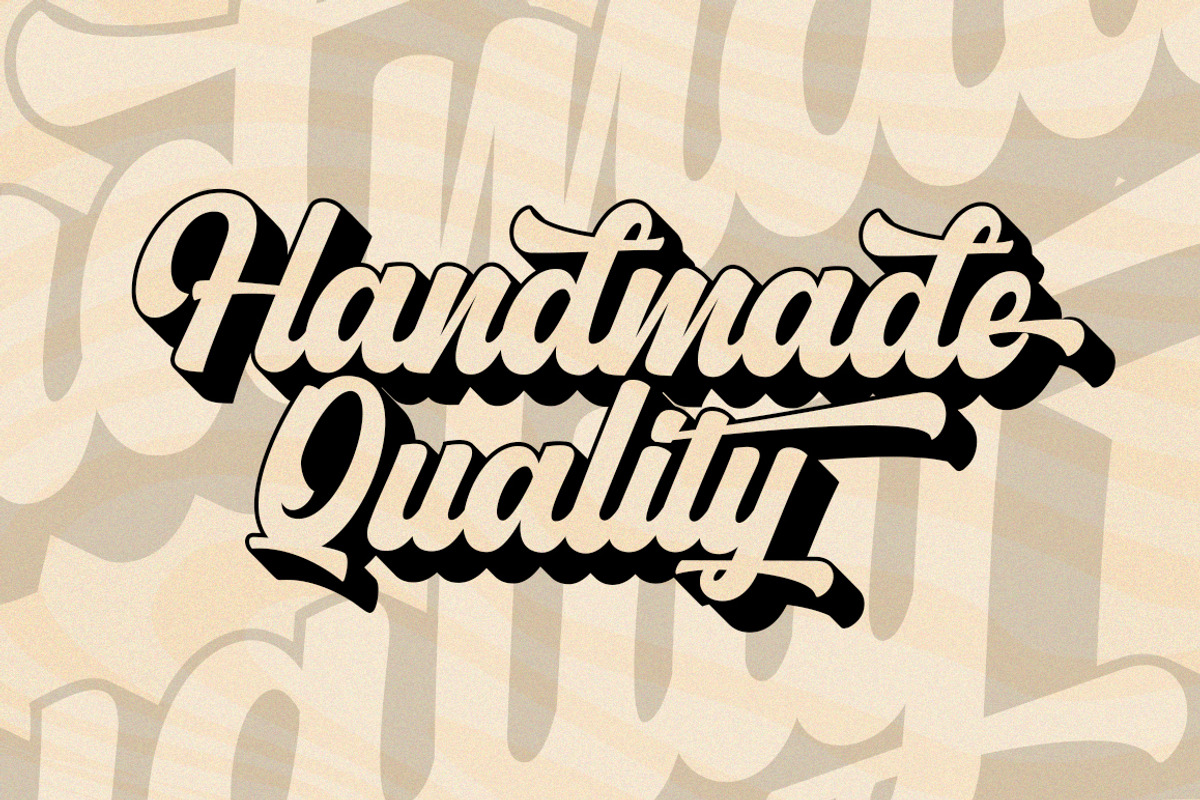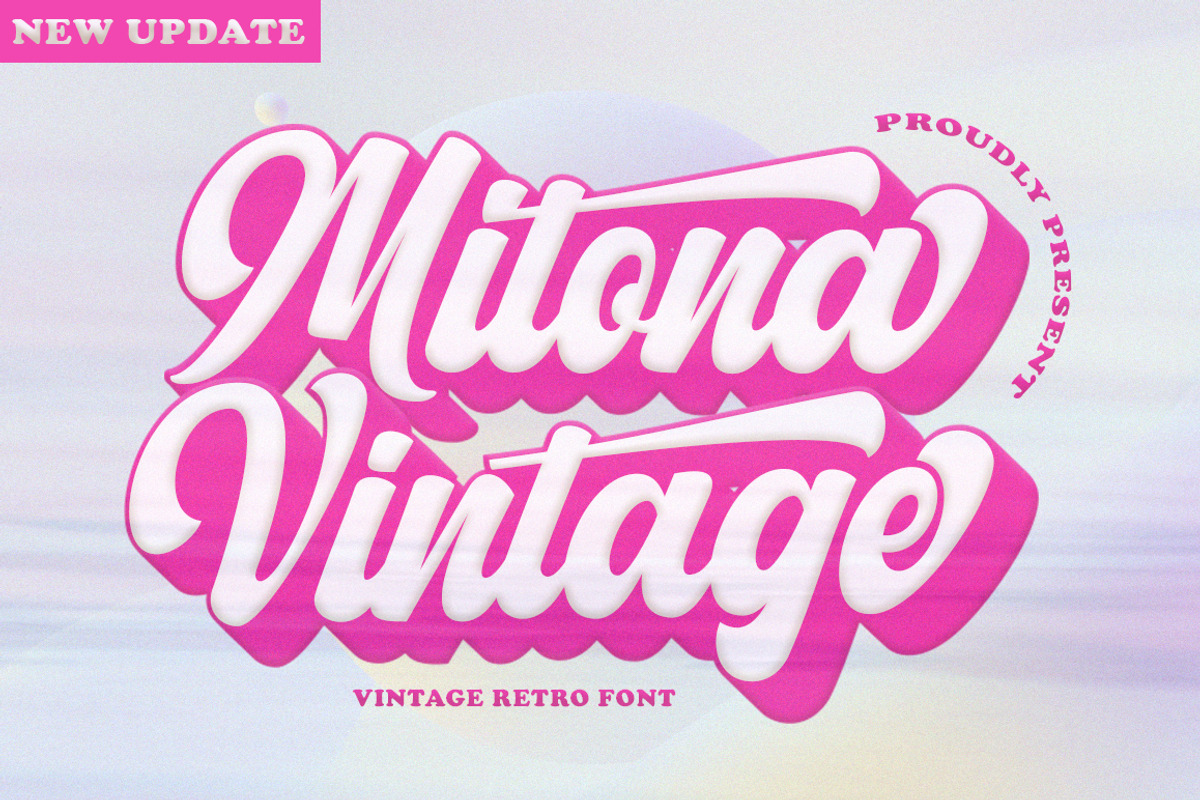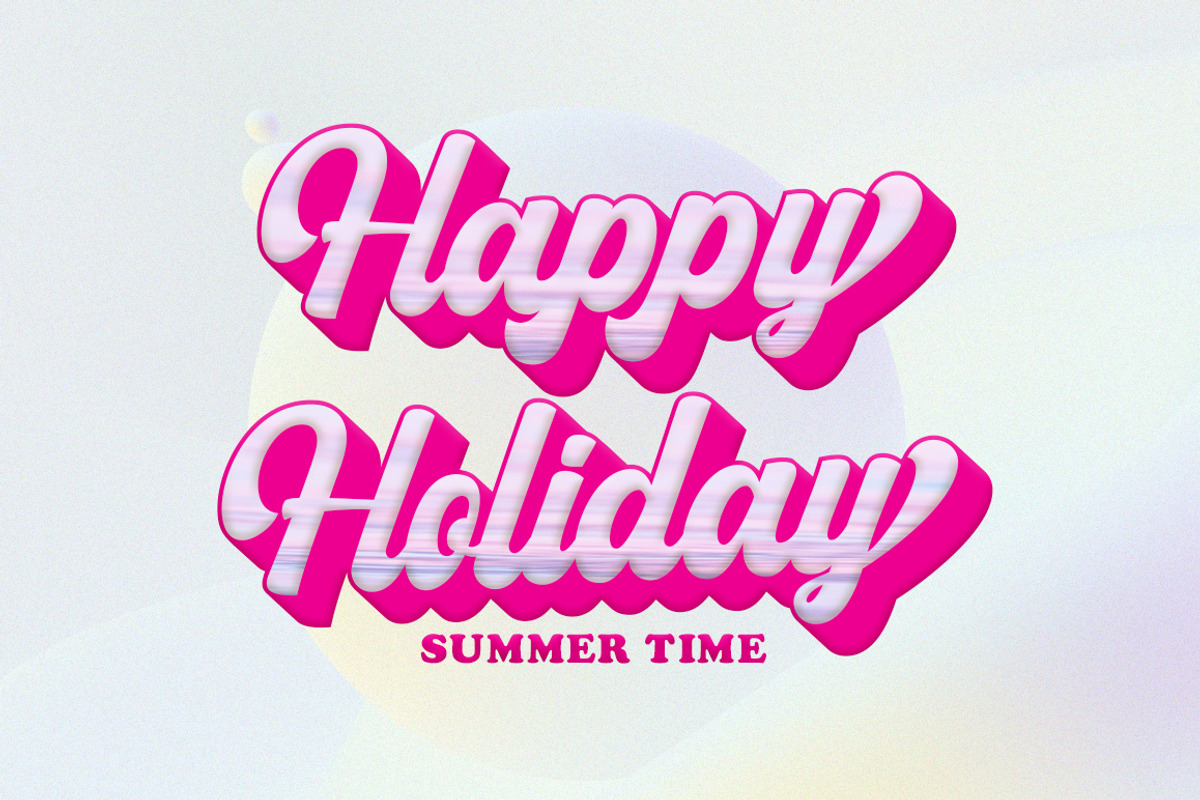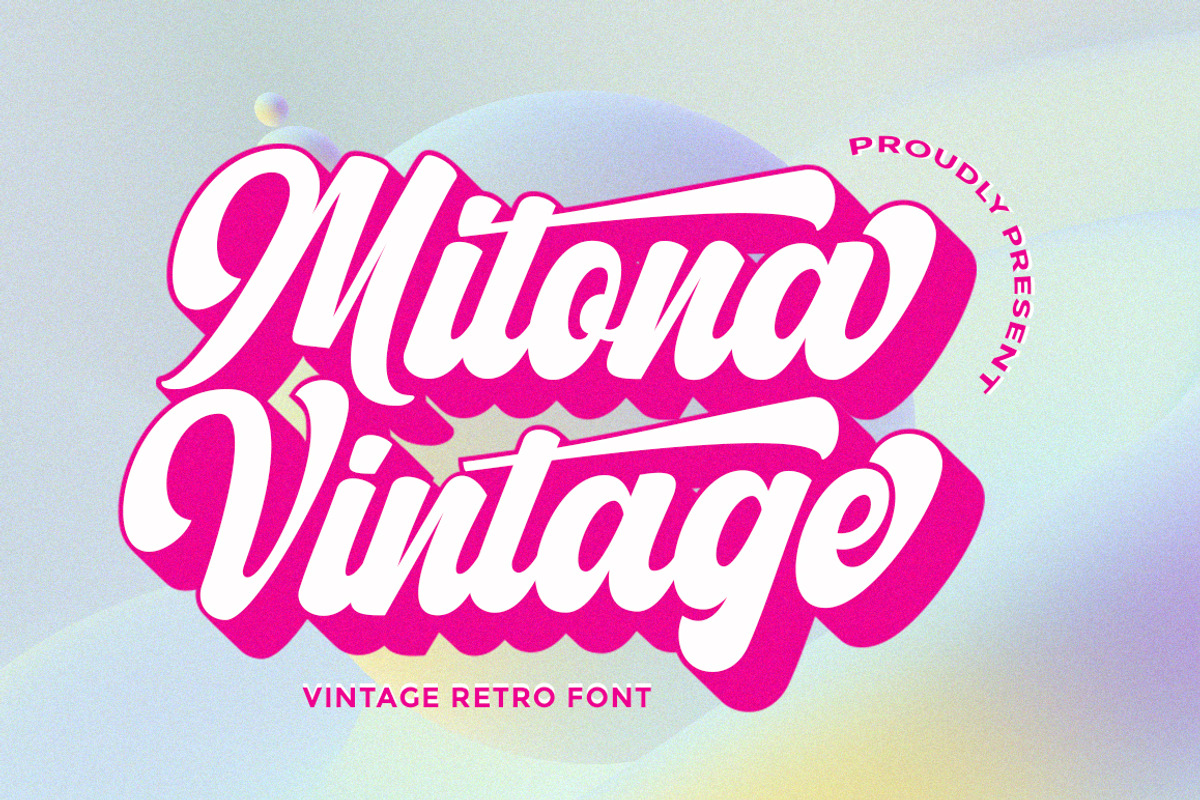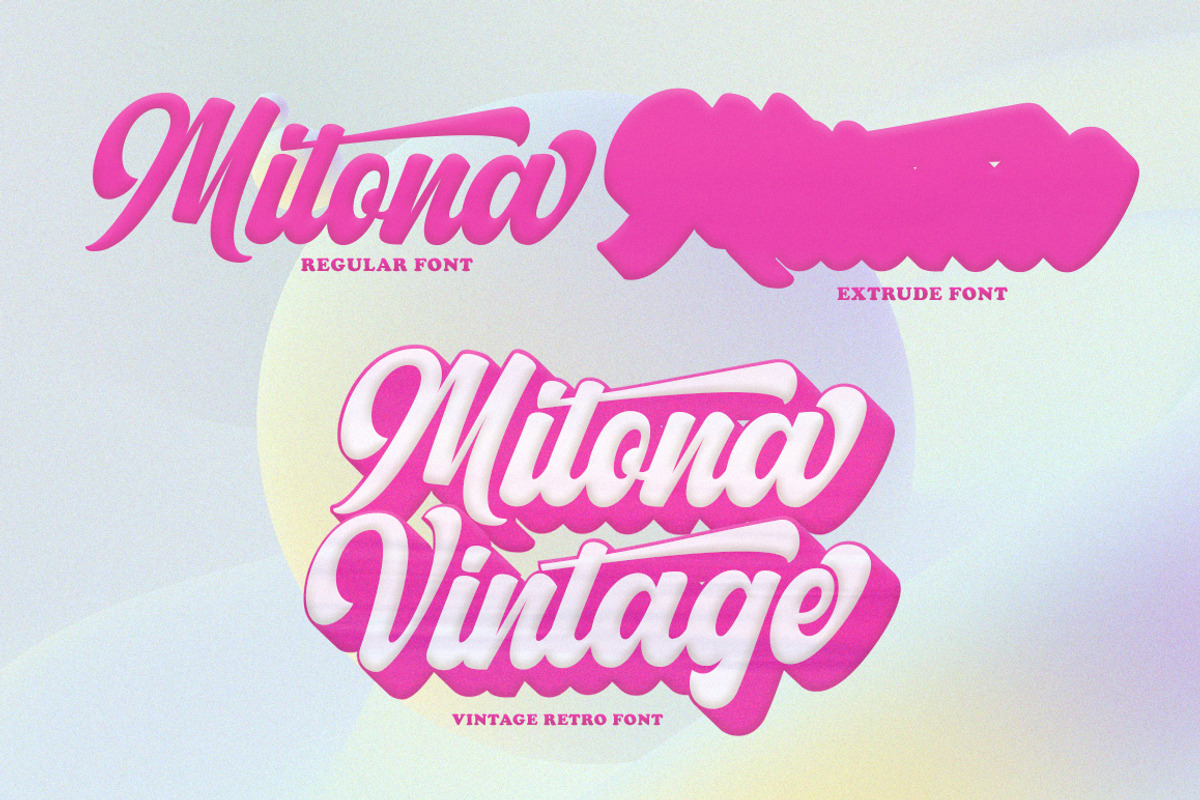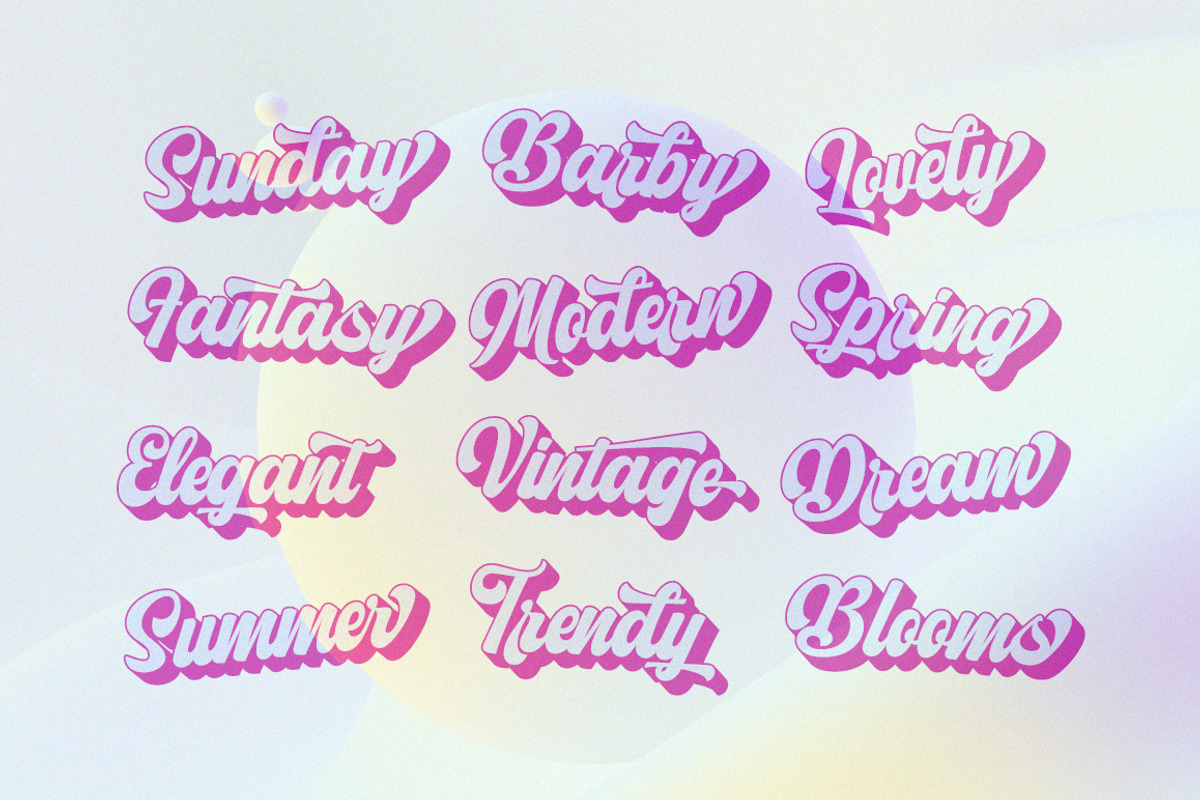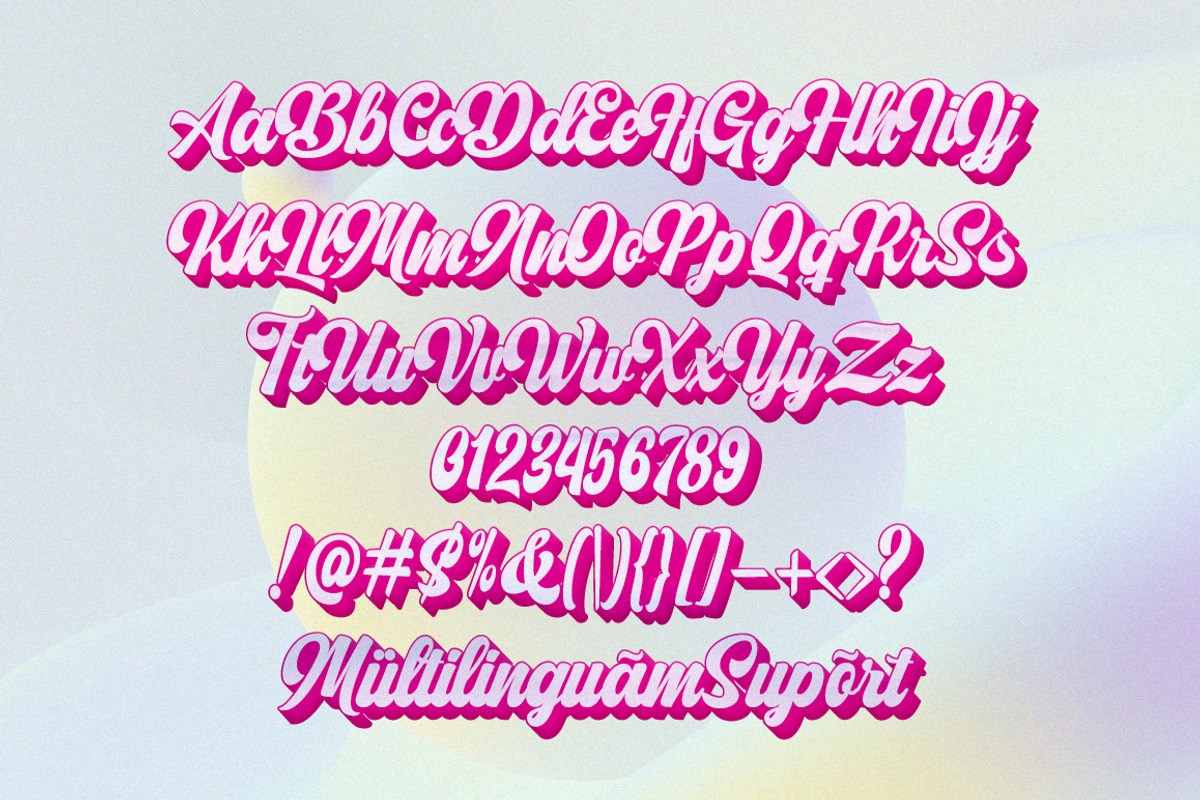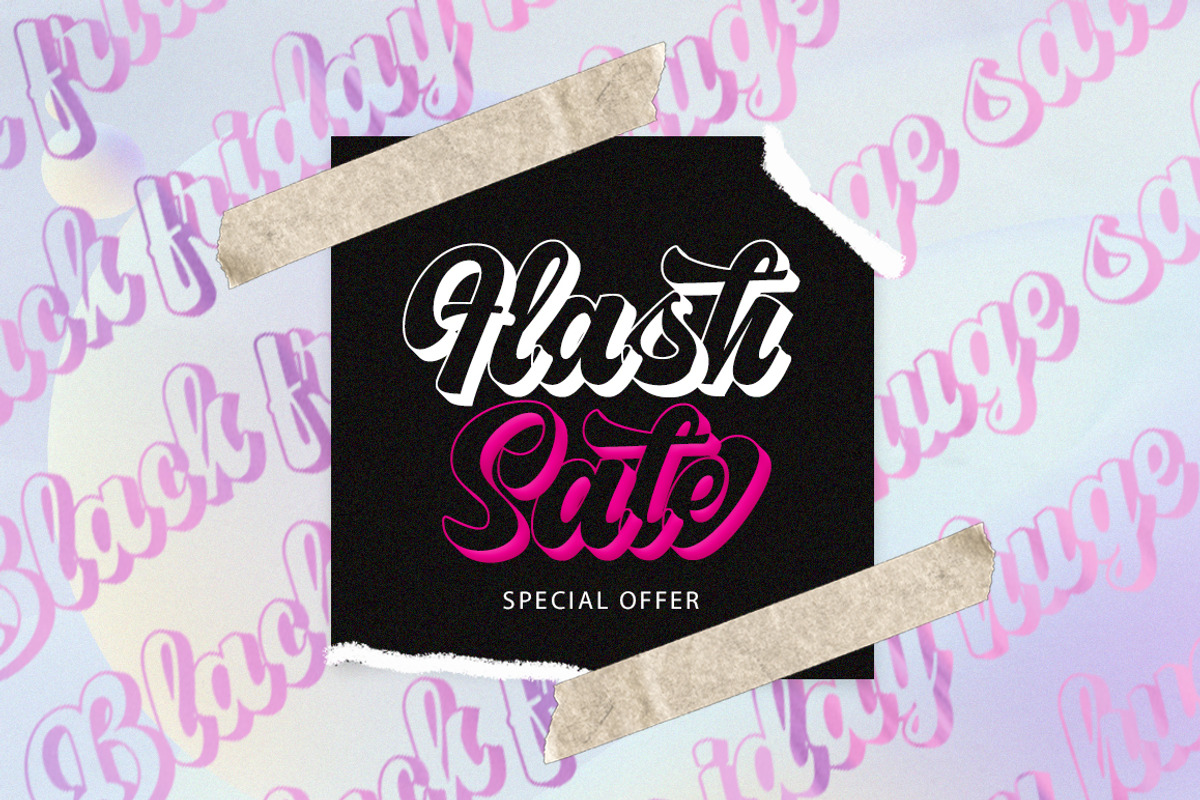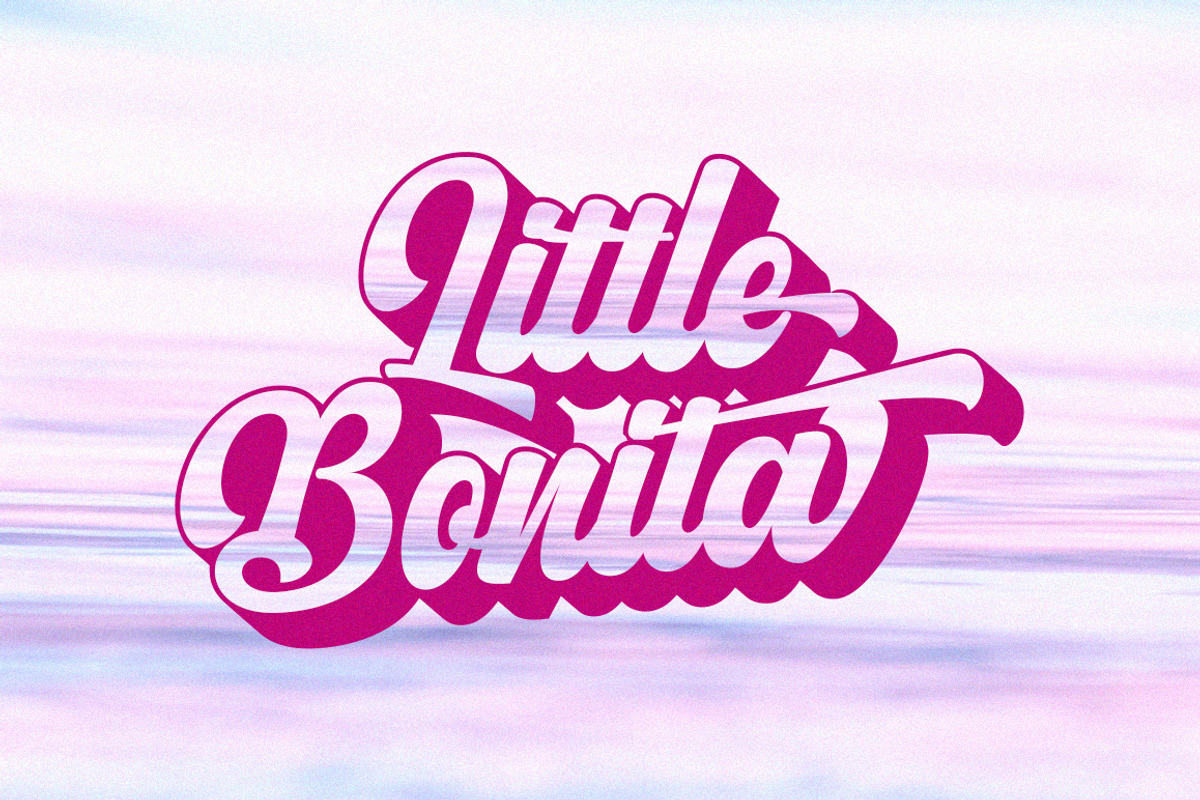
Mitona Vintage (New Update)
NEW UPDATE SANS SERIF FONT
Mitona Vintage retro font styled like a logotype letter.
created to help you design a logotype or writing style for your Brand or your client.
it has extensive language support, including European and Asian Latin scripts.
The font contains all the characters you need, including all punctuation and numbers.
Mitona Vintage has 7 fonts, these four fonts are used using the layer method so that they can produce fonts that are attractive to look at, you no longer need to worry about thinking about how to give effects to the text. Files include: